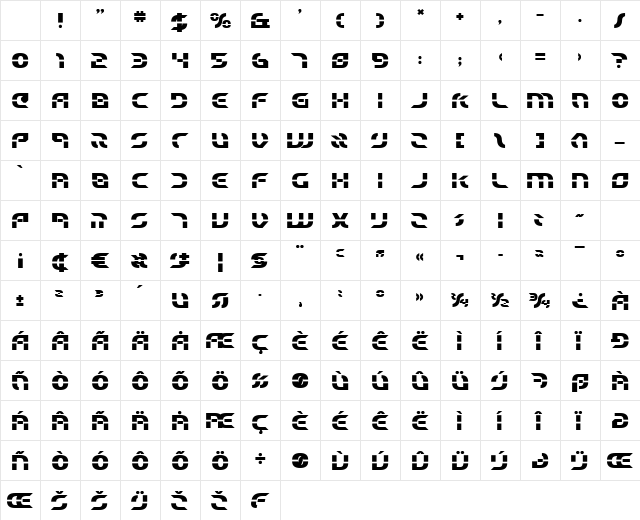
Complete Starfighter Beta Bold glyph index. Displaying only characters natively supported by Starfighter Beta Bold font.
Starfighter Beta is a composed and adaptable typeface that performs quietly and consistently across a wide range of design contexts. Its bold stroke weight gives it real presence on the page.